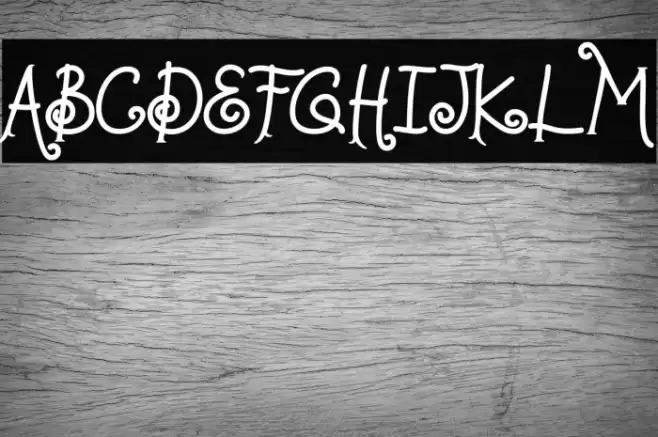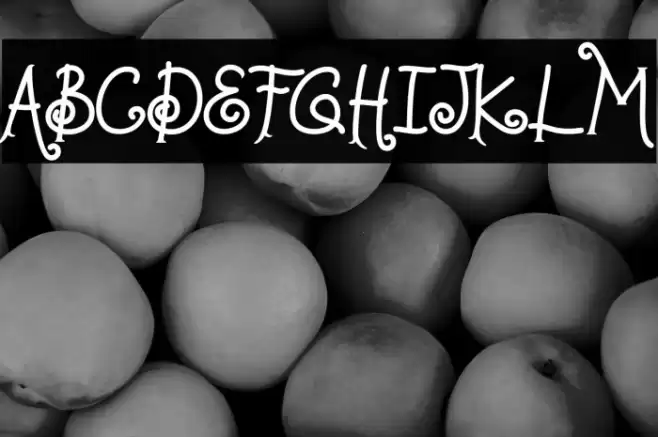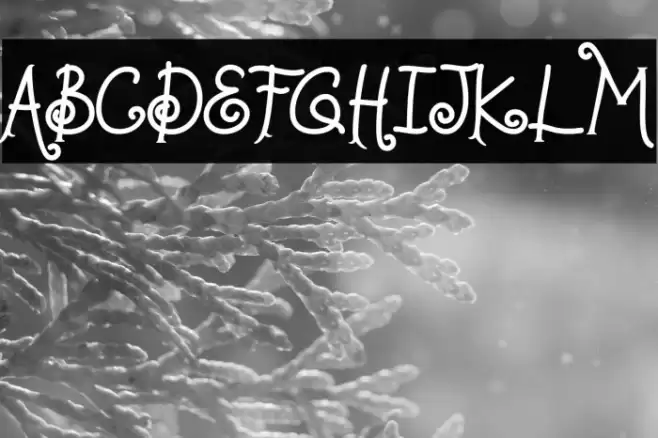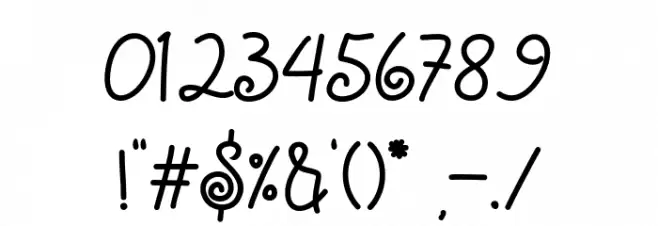
wornpath Font
wornpath Description
This font features a whimsical and playful design with a decorative flair. The uppercase letters are adorned with unique swirls and curls, giving them an artistic and ornate appearance. The lowercase letters maintain a similar style but with a slightly more subdued decoration, ensuring readability while retaining the font's distinctive character. Numbers and special characters are crafted with the same creative touch, making them stand out. The overall design is both eye-catching and fun, suitable for projects that require a touch of creativity and uniqueness.
A whimsical, decorative font with playful swirls and curls from Uncategorized fonts.
- Font: wornpath
- Proposed Projects: Ideal for children's book covers, playful branding, creative posters, and artistic invitations.